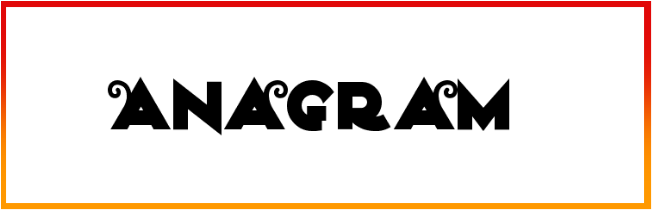
Artisual Deco Font
Artisual Deco
Artisual Deco is a fancy font designed by Mans Greback, Rizka Prayuda. It's a decorative display font with plenty of personality, made to grab attention. It's a free download, and you can try it with your own text in the preview above first.
- Designer: Mans Greback, Rizka Prayuda
What You Can Type With Artisual Deco
With complete upper and lowercase letters and all ten digits, Artisual Deco is ready for real wording, not just a single headline. Everyday marks like &, !, ? and @ are there too. Thanks to its accented letters, it also works for Spanish, French, German, Portuguese and Italian, not just English.
Where Artisual Deco Works Best
Think of Artisual Deco for posters, logos and eye-catching headlines. Use it for one standout word or headline and let simpler fonts handle the rest.
Does Artisual Deco support accented letters?
Yes. Artisual Deco includes the accented letters needed for Spanish, French, German, Portuguese and Italian, so it works for more than just English.